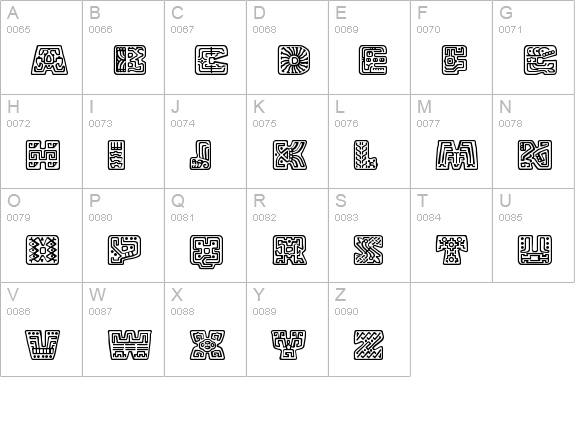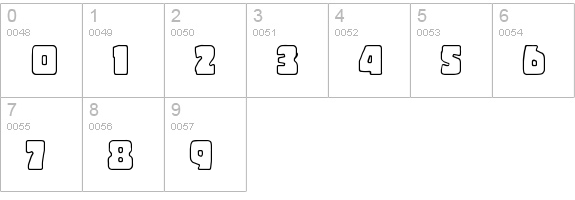
Copal Decorated Font Details
Copal Decorated font is a stunning display typeface that exudes elegance and sophistication. Its intricate details and ornate design make it perfect for adding a touch of luxury to any project. The delicate flourishes and stylish curves of this font will capture the attention of any viewer and elevate the overall aesthetic of your designs. What sets Copal Decorated font apart is its versatility - it can be used for a wide range of design projects, from invitations and signage to branding and packaging. Whether you're creating wedding invitations, luxury brand logos, or elegant product labels, this font is sure to make a lasting impression. And the best part? Copal Decorated font is available for free download at FontsMarket.com. You can easily access this exquisite font and start using it in your projects without any cost. Don't miss out on the opportunity to enhance your designs with the beauty and sophistication of Copal Decorated font.